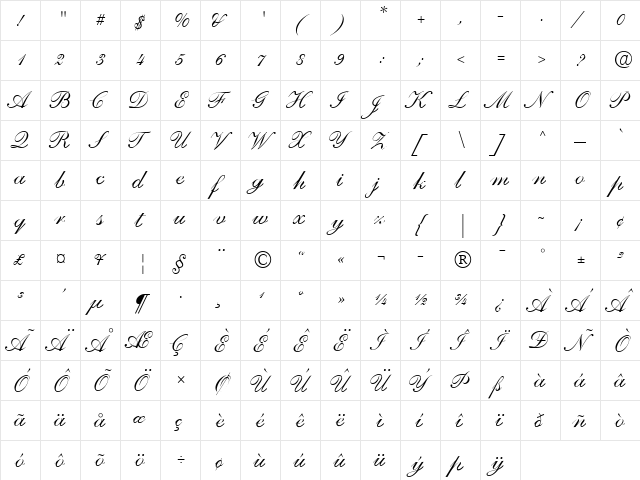
KovanovicPisN_D Regular
| Designer | Preradio Nikola Kovanovic. |
Design Context for KovanovicPisN_D Typeface
KovanovicPisN_D takes a measured approach to typography — its balanced proportions and neutral character make it a reliable workhorse for both digital and print work.